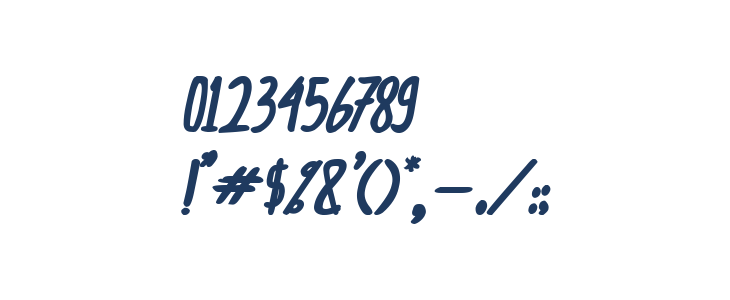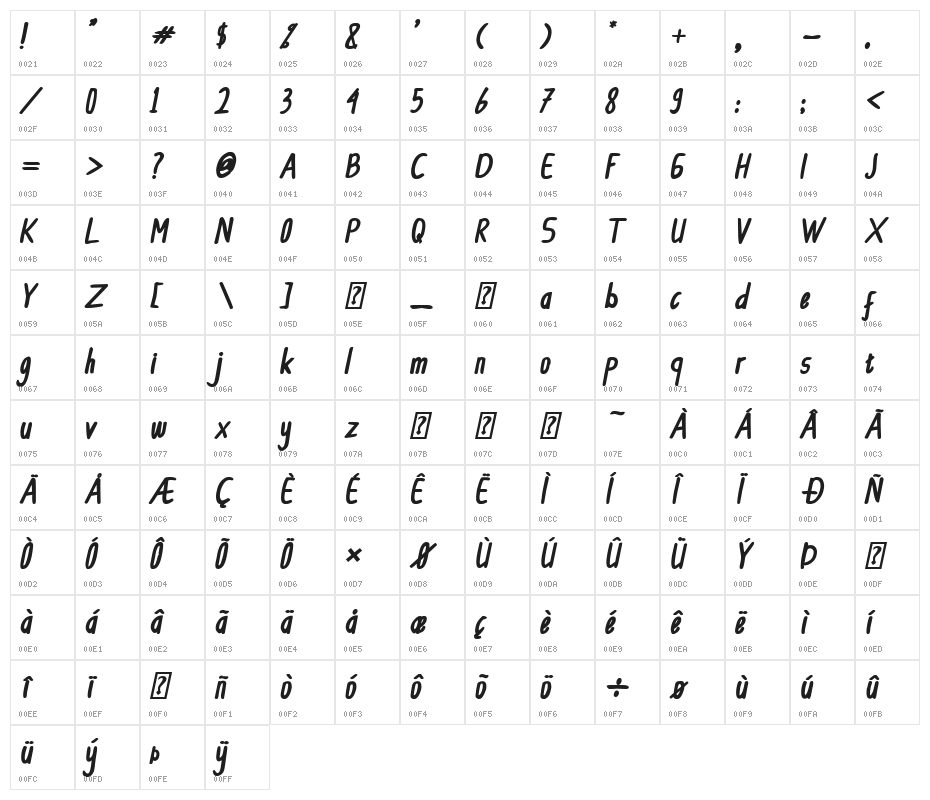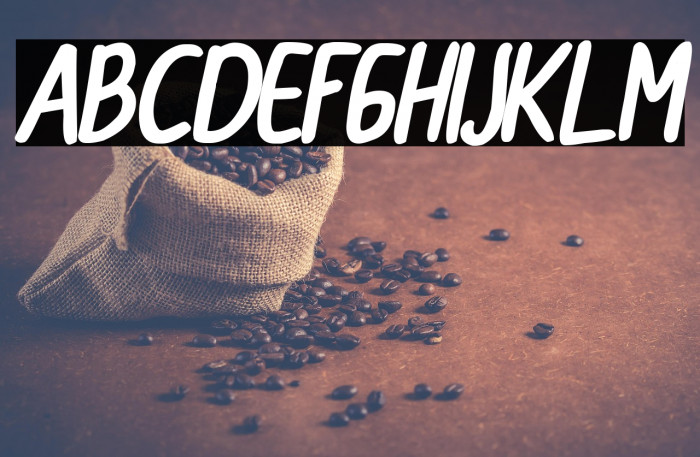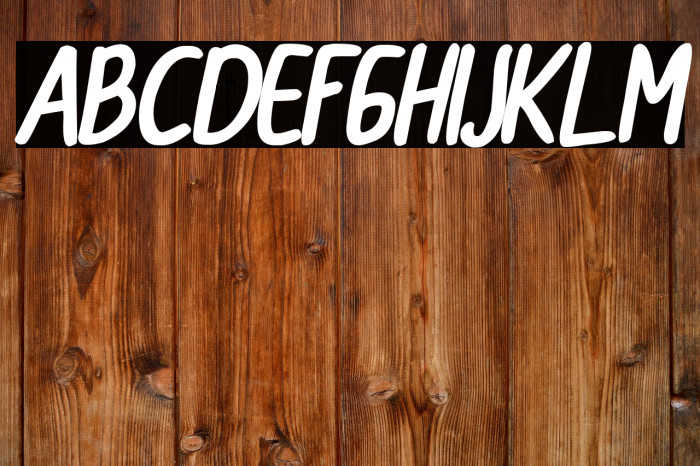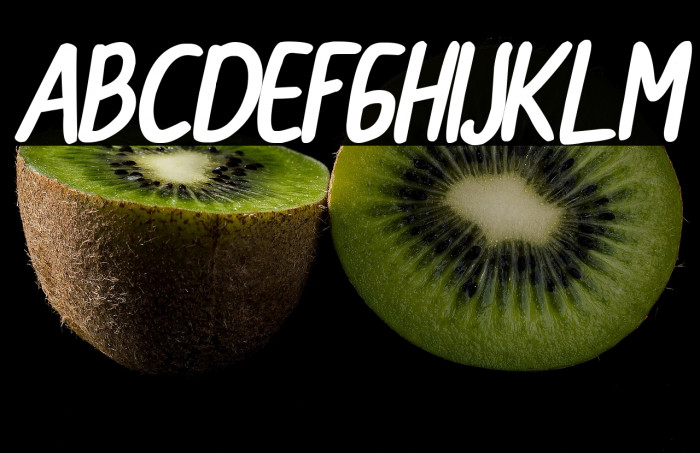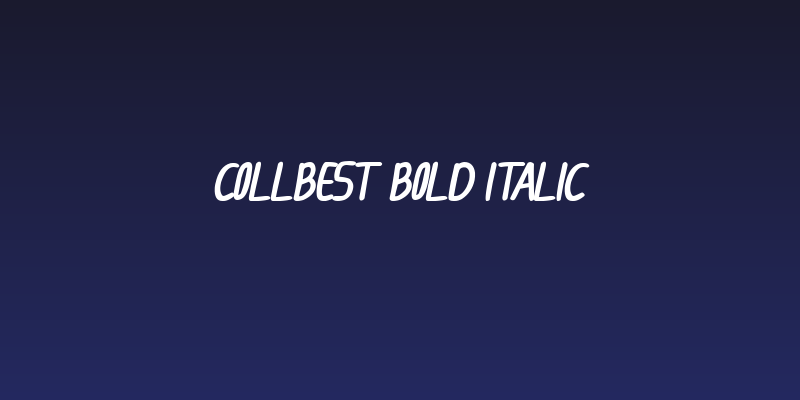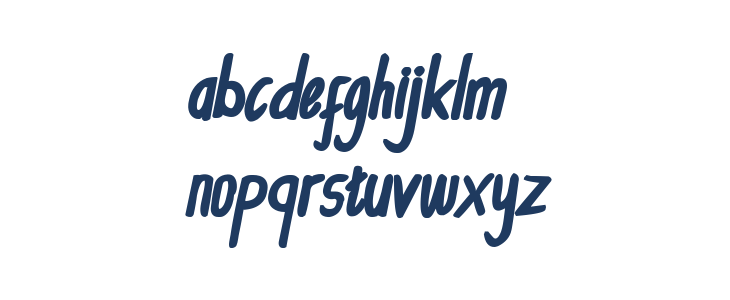
CollBesT Bold Italic Font
CollBesT Bold Italic Description
This font features a bold and italicized style with a handwritten appearance. The letters are slightly slanted, giving a dynamic and energetic feel. The strokes are thick and consistent, providing a strong visual impact. The characters are well-spaced, ensuring readability while maintaining a casual and informal look. The numbers and special characters follow the same style, making them cohesive with the alphabet. This font is suitable for projects that require a personal touch or a creative flair.
Overall StyleCasual and Creative
Use CaseHeadlines, Logos, Creative projects
Proposed ProjectsIdeal for creative projects such as posters, invitations, and branding materials that require a personal and informal touch.